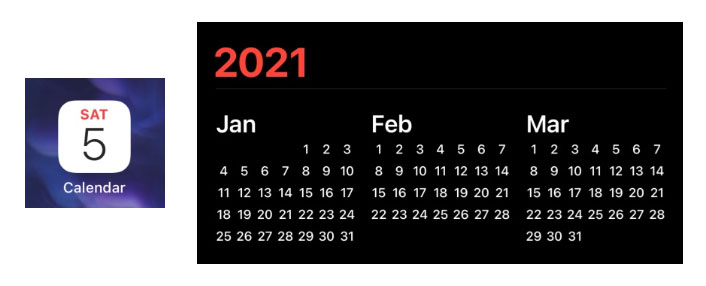
I just upgraded from iOS12 to iSO14 and i noticed mostly in calendar, that the font has changed. If i remember correctly in 12 there was a lighter version used, and in 14 looks like a regular font type. I dont have the old font to make comparison but have a look at the fonts used in 14 if someone is still using 12 to make a comparison.
I believe the system font in iOS 14 is still San Francisco, but maybe with the introduction of variable font formats, it looks slightly different. I don’t have any devices on iOS 12 to compare, but I’m pretty sure that version also used SF.
Could SF have more than one font variation? Like for eg. Light, Regular etc? Cause the font thats used in 14 looks slightly thicker. If the Light variation was used in 12, i would say it looked much much better, more fine and stylish!
If you read the link provided, you’ll find your answer.
I've got devices on 14 and 12. A quick glance shows the fonts within the app appear the same. The app icon does have a slightly bolder font.
Could vary by device/settings or something but that's what I'm seeing on 4" and 5.8" screens.